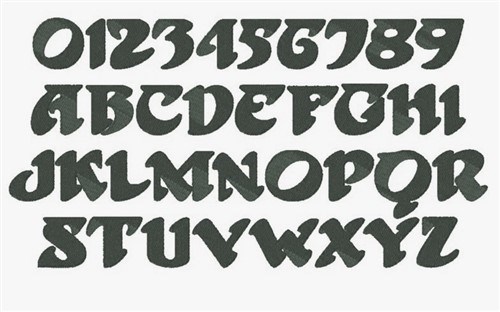
Unicorn Creatives is happy to present Old Babylon Embrilliance - Unique Decorative Style - BX font machine embroidery font which has This decorative machine embroidery font showcases unique letter shapes and curves, perfect for impactful designs on jackets and bags. Available in BX font and Embrilliance format. included. If you would like to view more embroidery fonts and alphabets please search our embroidery fonts page.
Old Babylon Embrilliance - Unique Decorative Style - BX font